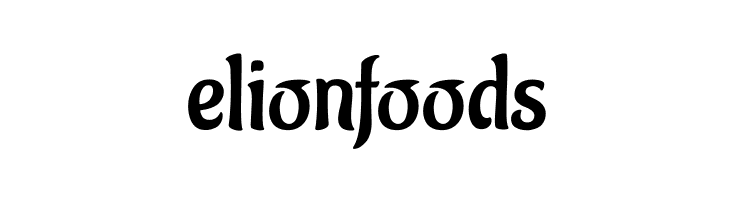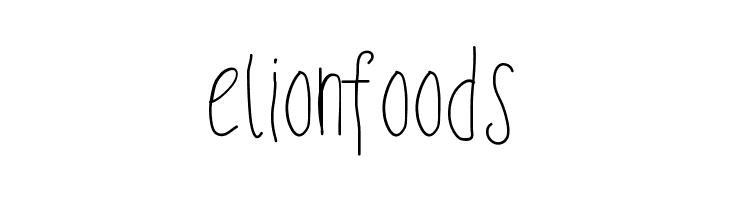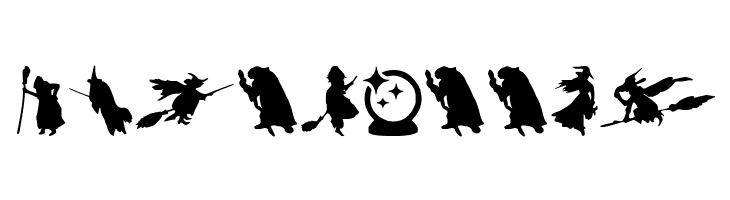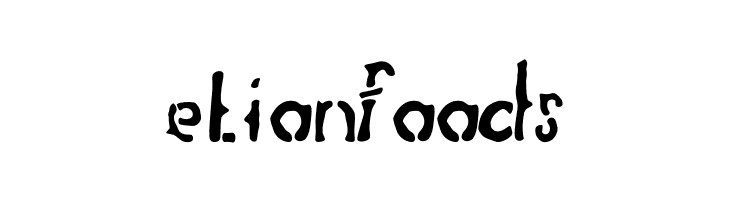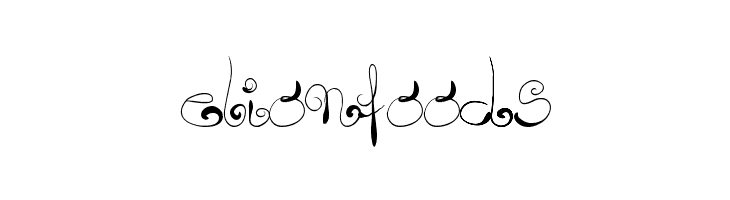
( Maestroentertainment )
A whimsical, fantasy-themed font with imaginative, decorative characters.
( Marta van Eck Designs - www.polish-your-art.com/boutique/index.php?main_page=index&cpath=9_14 )
A whimsical, curly font with playful loops and flourishes.
( Misti's Fonts - mistifonts.com/ )
A whimsical, handwritten script font with playful, flowing characters.
( Pixel Kitchen )
A bold, detailed set of medieval and fantasy-themed icons.
A whimsical, dotted outline font with a playful, fairy-tale style.
A decorative font with star-like sparkles, ideal for festive and creative designs.
( kimberlygeswein.com )
A whimsical and decorative font with playful swirls and curls.
Whimsical witch and magic-themed decorative icon font.